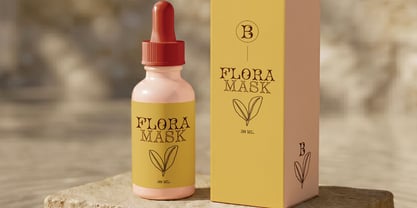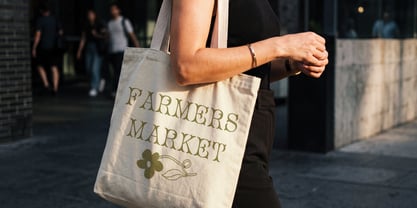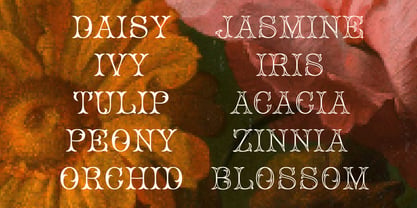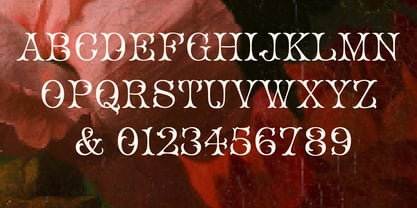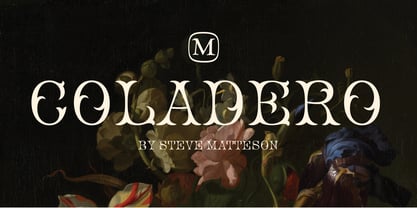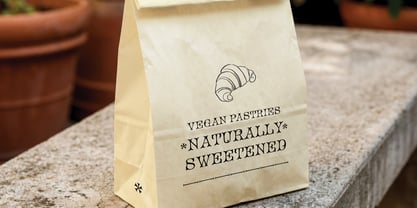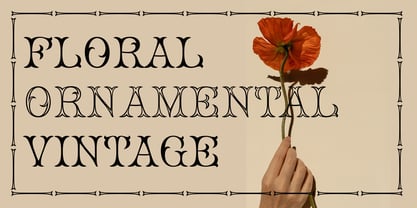
Coladero
by Matteson Typographics
The Coladero Font Family was designed by Steve Matteson and published by Matteson Typographics. Coladero contains 2 styles and family package options. More about this family
Coladero is based on the Bruce foundry’s Ornamented No. 1032 designed by Owen Jones circa 1857. Coladero evokes the Victorian Era with floral embellishment. The name Coladero references the stems which narrow at the midline. An organic ornamental design, Coladero is useful for decorative and vintage designs. Use Coladero for print, packaging, branding, and logo design.
Designers: Steve Matteson
Foundry: Matteson Typographics